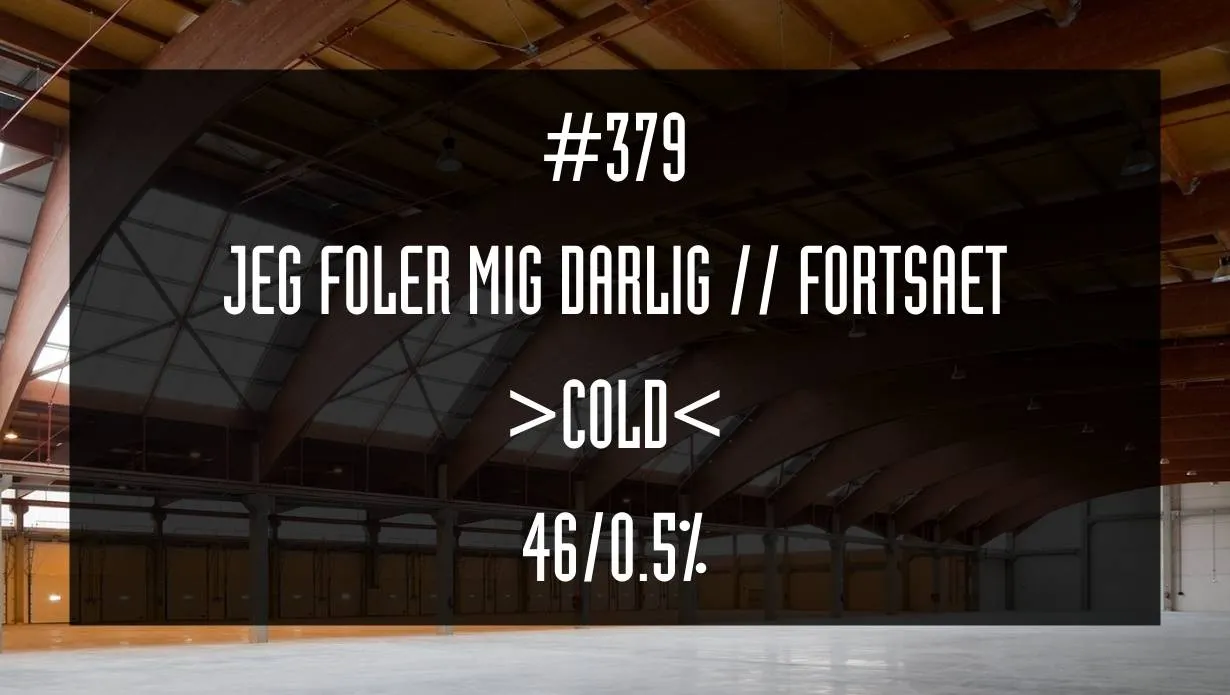
Industria Font is a sans-serif typeface with a strong personality. Industria was designed by Neville Brody and released through Broody Fonts in 1990.
It consists of a complete set of characters and 393 glyphs. Industria font looks like the Champion Font. This font has a bold style that looks fabulous on small and capital letters display. It also has astonishing sharp corners that provide a tremendous look to your design.
- Industria Solid
- Industria Inline
- Industria Regular
- Industria Italic
- Industria Light
- Industria Light Italic
- Industria Bold
- Industria Bold Italic
- Industria Black
- Industria Black Italic
- Industria Extra Light
- Industria Extra Light Italic